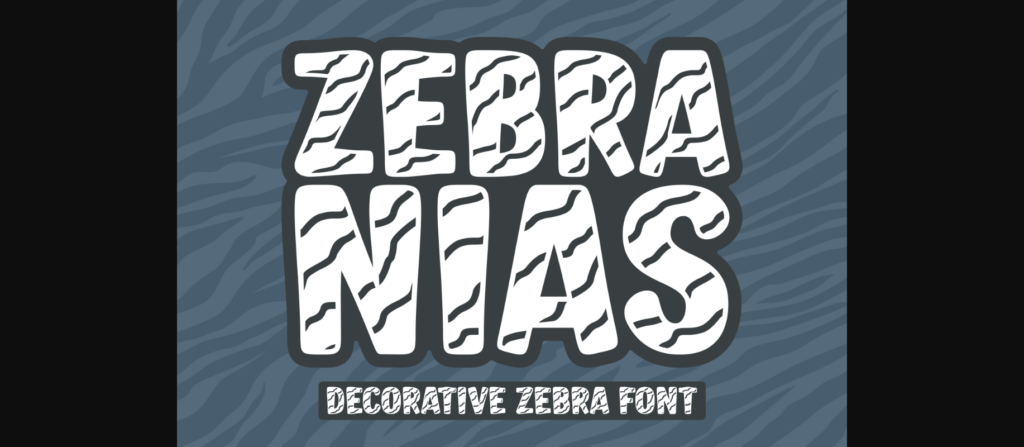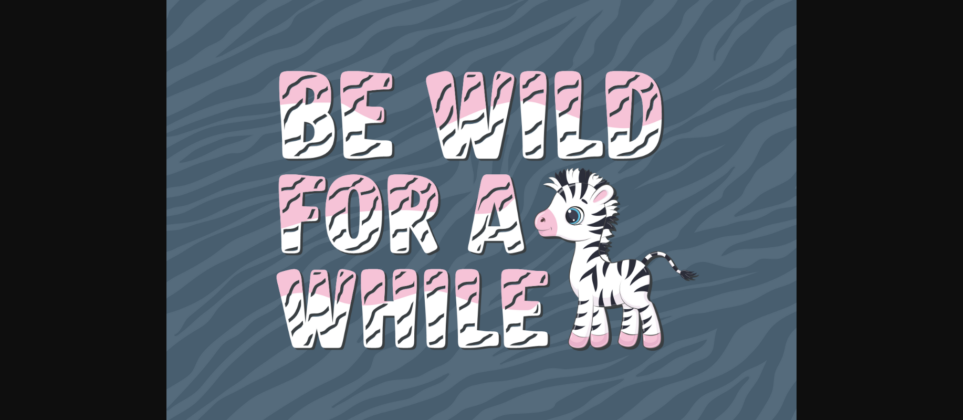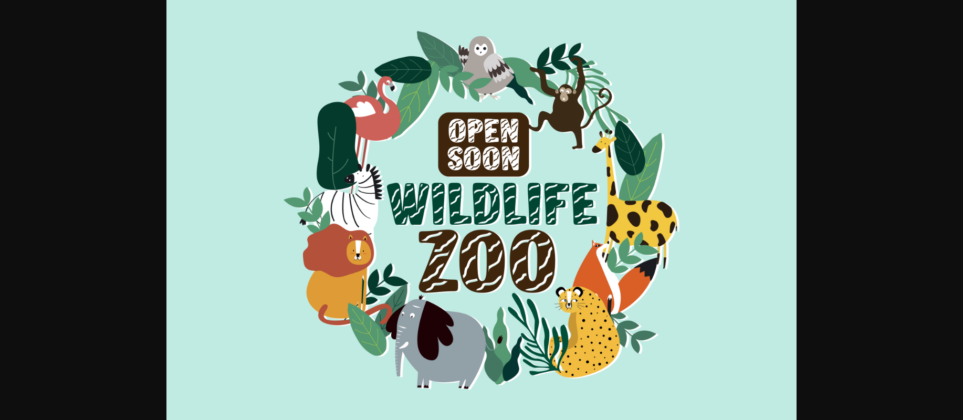
Zebra Nias Font
About Zebra Nias Font
Zebra Nias is an adorable decorative font that will surely add a wild and cute vibe to your creations! Each character has several zebra stripes and a lovely shape, perfect for creating kid-friendly designs.